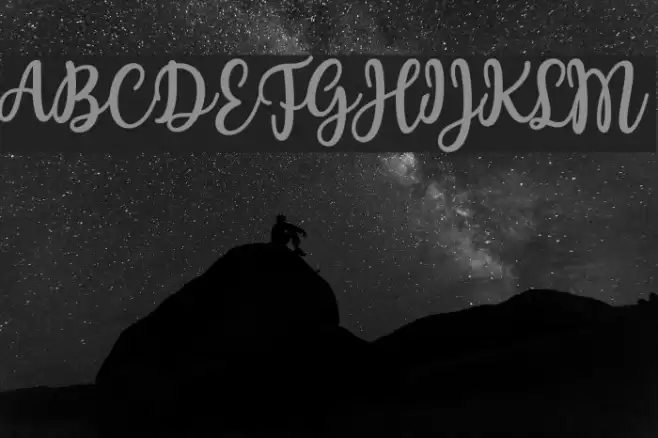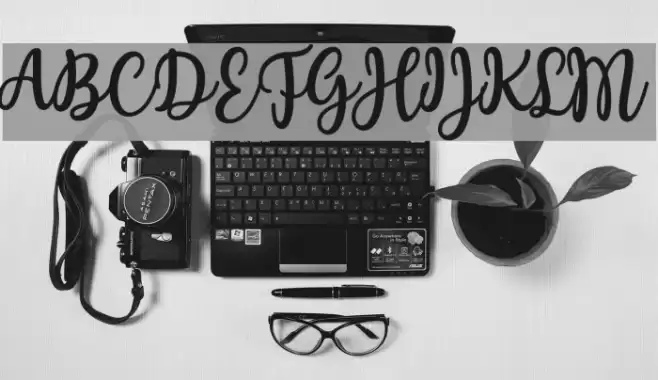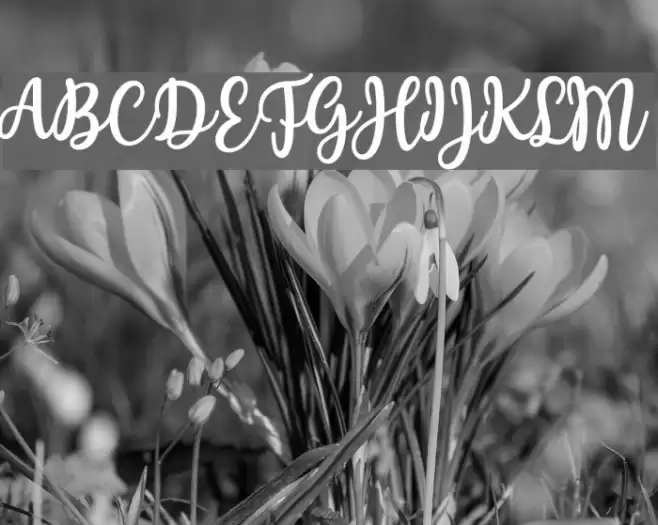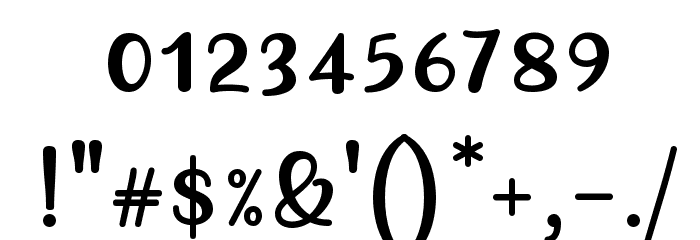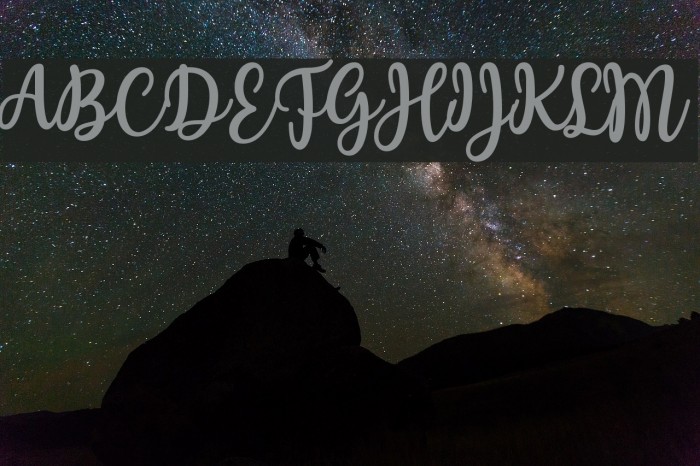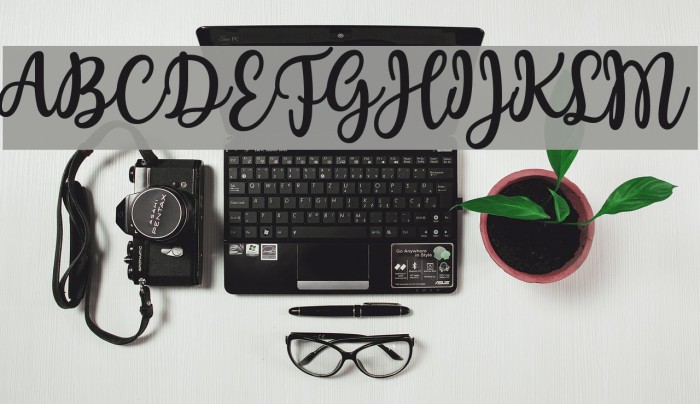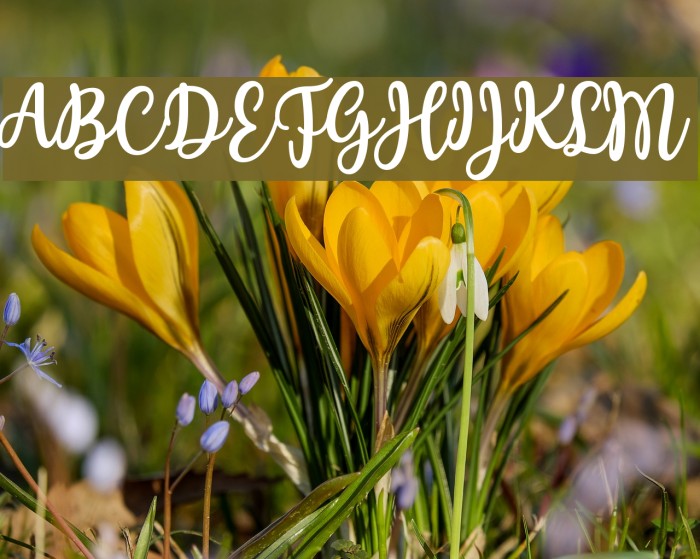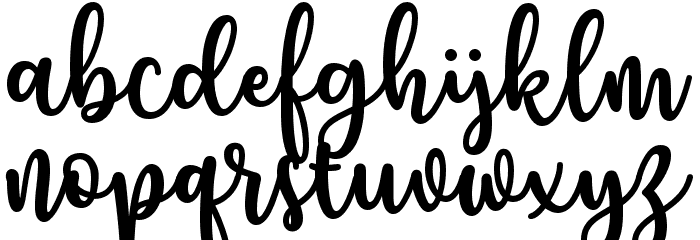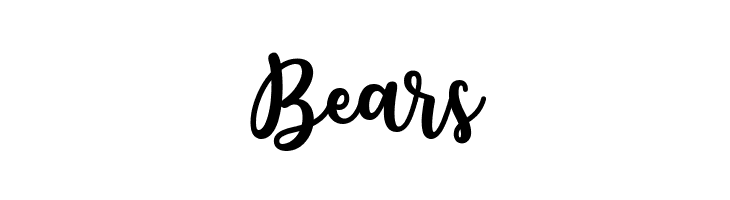
Charilla Font
Charilla Description
This font features a playful and flowing script style, characterized by its smooth, connected letters that mimic the fluidity of handwriting. The uppercase letters are elegantly looped, while the lowercase letters maintain a consistent rhythm with a slight slant, enhancing the handwritten aesthetic. The numerals are clear and slightly rounded, complementing the overall style. Special characters are crafted with the same attention to detail, ensuring they blend seamlessly with the alphabet. This font exudes a sense of warmth and approachability, making it ideal for creative and informal applications.
A playful, flowing script font with a handwritten aesthetic from Uncategorized fonts.
- Proposed Projects: Perfect for wedding invitations, greeting cards, branding projects, and social media graphics.
- Use Case: Logos, Invitations, Social Media